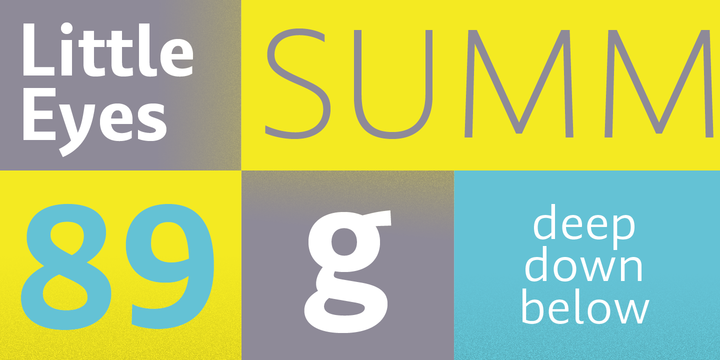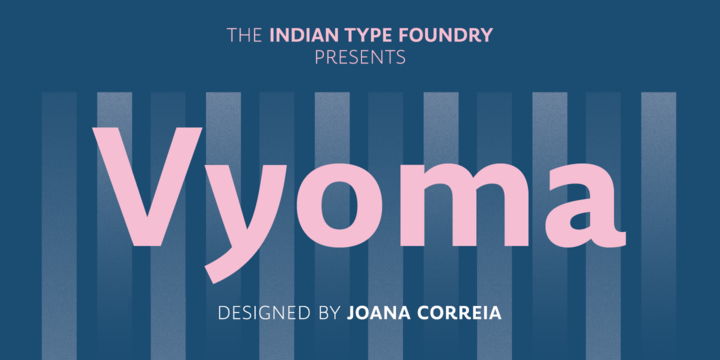
Vyoma
Vyoma Font Family
Joana Correia’s Vyoma is a friendly-looking typeface and an outstanding humanistic sans. Its letterforms appear both playful and nice. Several letters feature curved out-strokes: these are unusual for a sans serif design, but they definitely add personality. The counterforms in this design are very open, and they help create words that are highly legible and a joy to read. Try out Vyoma in a wide variety of applications, including corporate identity, signage, and text (onscreen and in print). In Hindi, “vyoma” is a word for the sky.